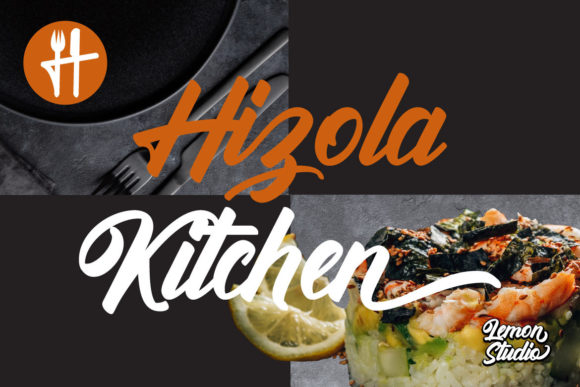
Wild Moon Font: A Cool Handwritten Font with an Extrude Effect
Are you looking for a unique and stylish font to elevate your design projects? Look no further than the Wild Moon Font. This cool handwritten font comes with an extrude effect, making it perfect for a wide range of applications. In this article, we’ll take a closer look at the Wild Moon Font, its features, and how you can use it to take your designs to the next level.
What is Wild Moon Font?
Wild Moon is a cool handwritten font that comes with an extrude effect. This font is inspired by classic and modern calligraphy merged with a hand-lettering style. The result is a unique and stylish font that’s perfect for adding a touch of elegance and sophistication to your designs.
Wild Moon Font is a versatile font that can be used for a wide range of applications, including logotypes, branding designs, headings, digital lettering arts, posters, t-shirts, magazines, quotes, signs, Instagram designs, advertising designs, and so much more.
Benefits of Using Wild Moon Font
There are many benefits to using Wild Moon Font in your design projects. Here are just a few:
- Unique and Stylish: Wild Moon Font has a unique and stylish design that’s sure to make your designs stand out. The extrude effect adds a touch of sophistication and elegance, making it perfect for high-end designs.
- Versatile: Wild Moon Font is a versatile font that can be used for a wide range of applications. Whether you’re designing a logo, a poster, or a social media graphic, this font is sure to fit the bill.
- Easily Readable: Despite its unique design, Wild Moon Font is easily readable, making it perfect for body text and headings.
- Customizable: Wild Moon Font comes with a range of customization options, allowing you to tailor it to your specific design needs.
Inspiration Behind Wild Moon Font
Wild Moon Font is inspired by classic and modern calligraphy merged with a hand-lettering style. The font’s designer wanted to create a font that was both elegant and stylish, with a touch of whimsy and playfulness.
The extrude effect adds a 3D-like quality to the font, making it perfect for designs that need to stand out. The font’s unique design is sure to add a touch of sophistication and elegance to any design project.
Uses for Wild Moon Font
Wild Moon Font is a versatile font that can be used for a wide range of applications. Here are just a few ideas to get you started:
- Logotypes: Wild Moon Font is perfect for creating unique and stylish logotypes that will help your brand stand out.
- Branding Designs: Use Wild Moon Font to create branding designs that are both elegant and stylish.
- Headings: Wild Moon Font is perfect for headings and titles, adding a touch of sophistication and elegance to any design.
- Digital Lettering Arts: Wild Moon Font is a great choice for digital lettering arts, adding a touch of whimsy and playfulness to any design.
- Posters: Use Wild Moon Font to create eye-catching posters that will grab attention.
- T-Shirts: Wild Moon Font is perfect for designing t-shirts that are both stylish and unique.
- Magazines: Use Wild Moon Font to add a touch of elegance and sophistication to your magazine designs.
- Quotes: Wild Moon Font is perfect for creating inspirational quotes that will add a touch of whimsy and playfulness to any design.
- Signs: Use Wild Moon Font to create eye-catching signs that will grab attention.
- Instagram Designs: Wild Moon Font is a great choice for Instagram designs, adding a touch of elegance and sophistication to any post.
- Advertising Designs: Use Wild Moon Font to create advertising designs that are both stylish and effective.
Tips for Using Wild Moon Font
Here are a few tips for using Wild Moon Font in your design projects:
- Experiment with Colors: Wild Moon Font looks great in a range of colors, so don’t be afraid to experiment and find the perfect color for your design.
- Use it as a Headline Font: Wild Moon Font is perfect for headlines and titles, adding a touch of sophistication and elegance to any design.
- Pair it with Other Fonts: Wild Moon Font pairs well with a range of other fonts, so don’t be afraid to experiment and find the perfect combination for your design.
- Use it for Body Text: While Wild Moon Font is perfect for headlines and titles, it can also be used for body text. Just be sure to adjust the size and spacing to ensure it’s easily readable.
Wild Moon Font is a cool handwritten font with an extrude effect that’s perfect for a wide range of design applications. Its unique and stylish design makes it a great choice for adding a touch of elegance and sophistication to any design project.
Whether you’re designing a logo, a poster, or a social media graphic, Wild Moon Font is sure to fit the bill. So why not give it a try and see how it can elevate your designs?